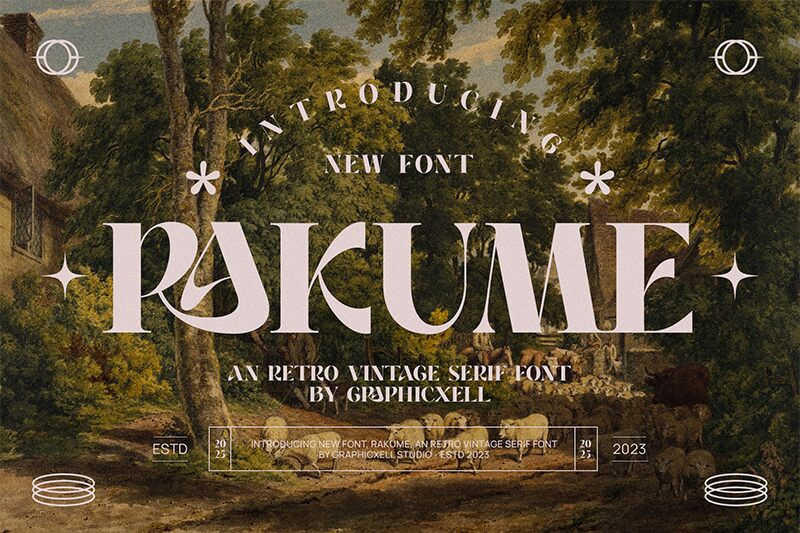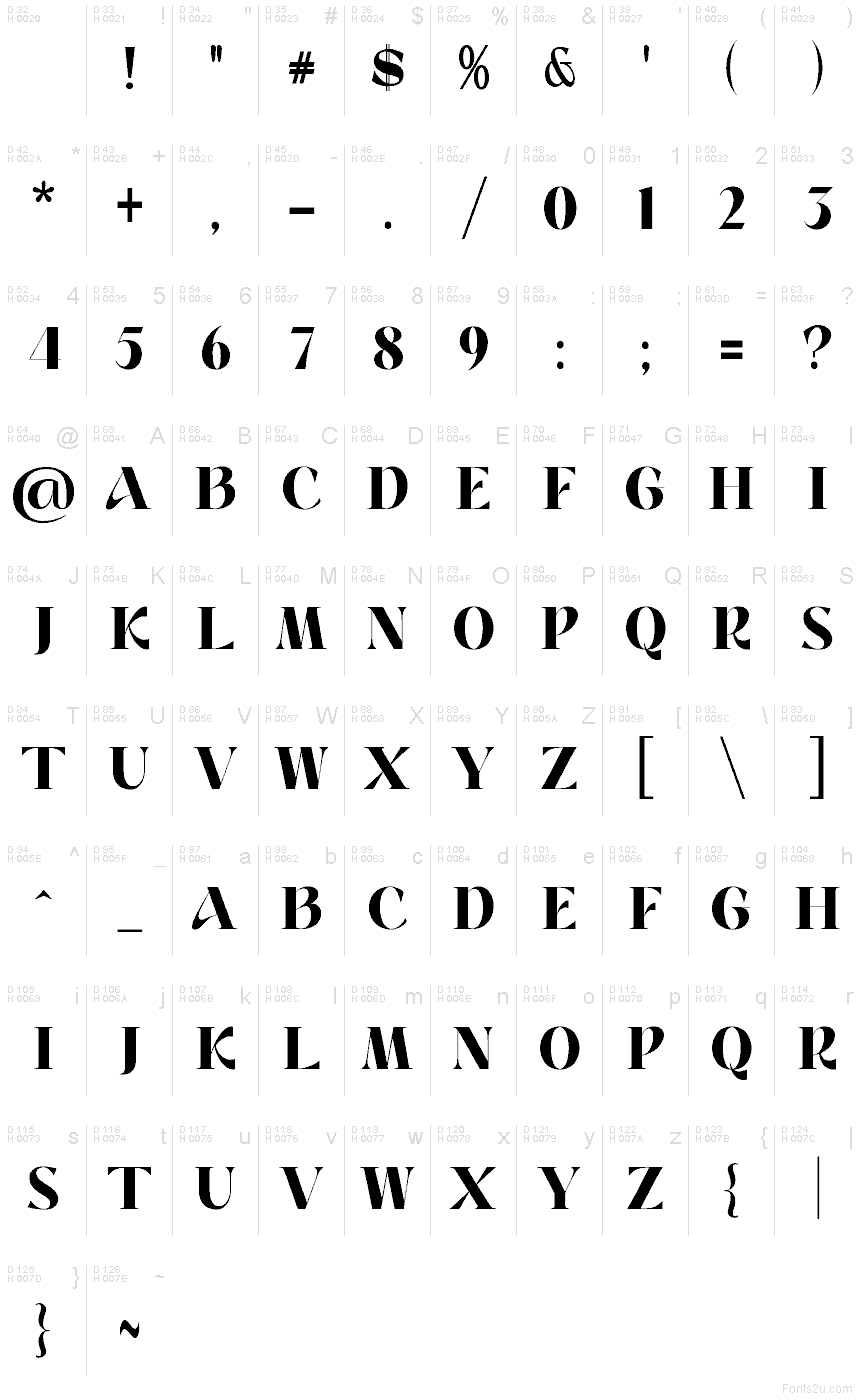
Rakume font by Graphicxell is a free serif font. Its signature move is the sculpted, inky carving inside each stroke-sleek scoops, sharp wedges, and velvety curves that create a dramatic, almost calligraphic pulse. The letters feel cut from black marble: dense, glossy, and confident, with tight rhythm that snaps into clean word shapes.
Using Rakume, headlines grip attention on boutique logos, wine labels, magazine covers, posters, packaging, and event invitations. Those sculpted forms add luxury without fuss, reading boldly at large sizes and holding texture up close. For balance, pair this free font with a calm grotesque sans in small text or captions.